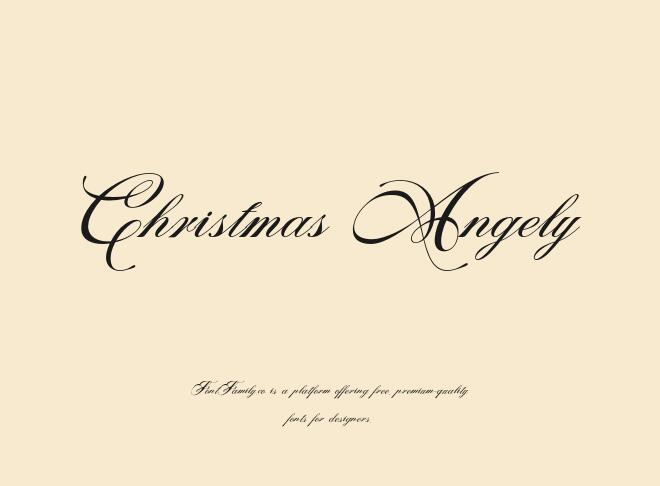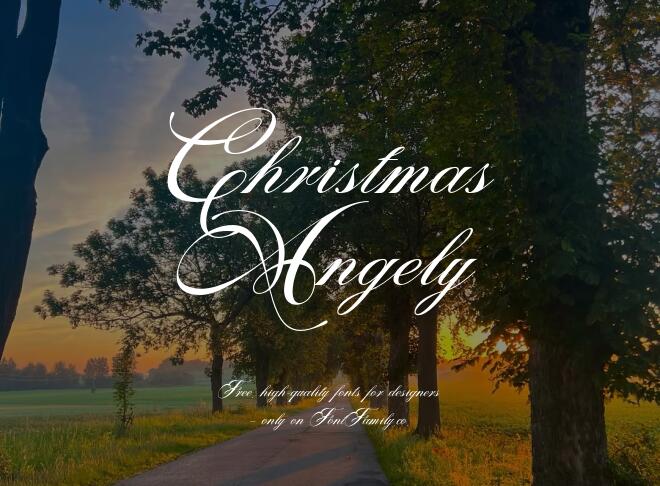
Christmas Angely Font
Introducing the Christmas Angely Font, a festive and charming handwritten script designed by Creative Type Foundry. This playful and decorative font exudes a warm holiday spirit, making it a perfect choice for holiday-themed designs, greeting cards, and decorative banners. With its whimsical lettering style, Christmas Angely Font stands out significantly from other script fonts, providing a unique and engaging visual appeal. It's free for personal use and is an excellent choice for designers looking to add a festive touch to their projects. Despite its seasonal inspiration, Christmas Angely Font remains versatile enough for year-round use in various creative projects, adding a fun and whimsical touch wherever it's used.